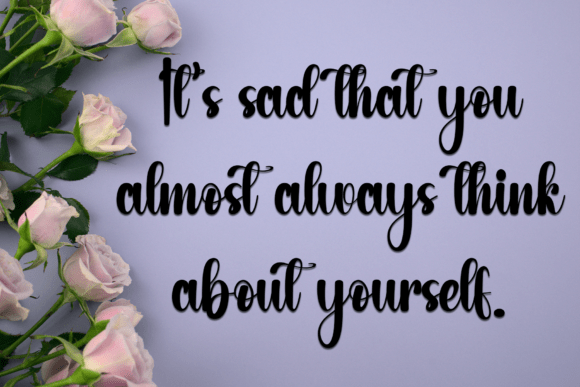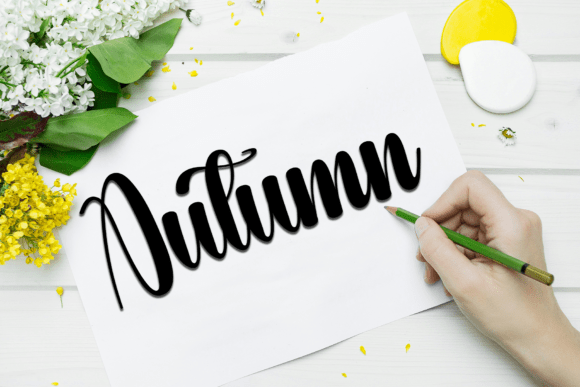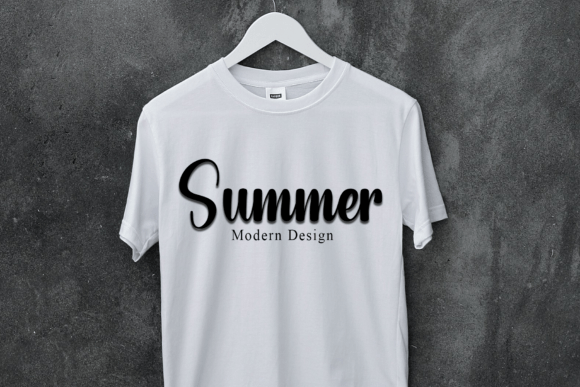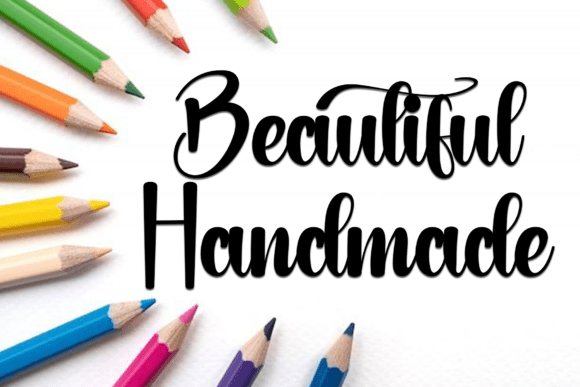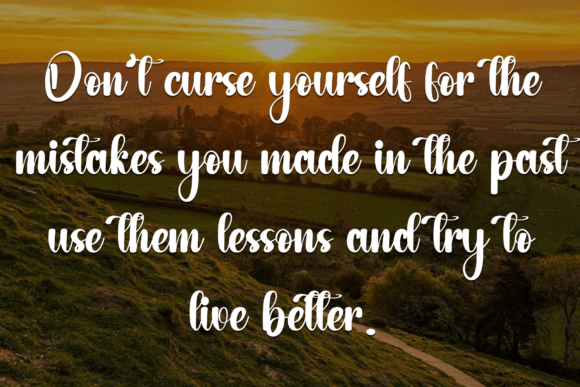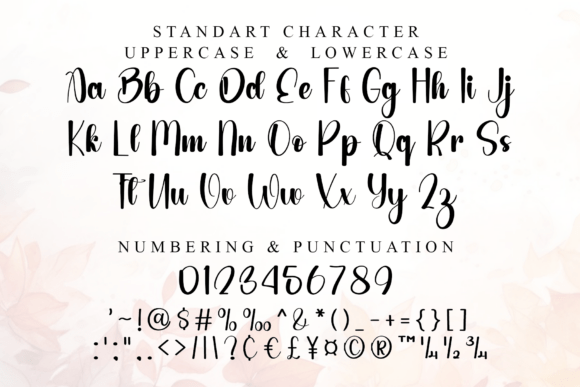
Introduction to Signature Calligraph Font
As a designer, have you ever found yourself staring at a blank canvas, searching for the perfect font to bring your creative project to life? It’s a moment we’ve all experienced – the blank slate, the endless possibilities, and the pressure to create something truly special. That’s where the Signature Calligraph Font comes in, offering a unique and timeless handwritten font that will elevate your designs to the next level.
This stunning font is not only a design resource, but also a reflection of your brand’s personality and style. With its high-quality, handwritten letters, the Signature Calligraph Font is perfect for creating eye-catching logos, branding, and quotes. Whether you’re working on a project with a transparent background or a bold, colorful design, this font is sure to add a touch of elegance and sophistication.
Key Features of Signature Calligraph Font
- Unique, Hand-Drawn Design: The Signature Calligraph Font is a one-of-a-kind, high-quality design resource perfect for creative projects requiring a personal touch.
Honest Review: Signature Calligraph Font
I recently had the chance to work with the Signature Calligraph Font, and I must say it’s been a game-changer for my creative projects. This high-quality font is perfect for adding a personal touch to your designs.
- ✨ Beautiful and elegant script style that’s perfect for titles and headings
- ✨ High-quality vector graphics that are crisp and clear even at small sizes
One thing to note is that the font can be a bit tricky to work with for beginners, especially when it comes to adjusting the spacing and alignment. Additionally, the font may not be compatible with all design software, so be sure to check the system requirements before downloading.
- ⚠️ May not be suitable for large blocks of text due to its script style
- ⚠️ Can be tricky to work with for beginners
Overall, I’m very impressed with the Signature Calligraph Font. It’s a valuable addition to any designer’s toolkit, and I’ve already used it in several high-profile projects. If you’re looking for a high-quality, free font for your creative project, I highly recommend giving it a try.
Experiment with different font sizes and colors to create a unique look. Use the font in combination with other design elements to add depth and interest to your design project. Consider using the font on a transparent background to create a sense of layering and dimension.
The Signature Calligraph Font is ideal for use in wedding invitations, birth announcements, and other special occasion designs. It’s also great for creating high-quality logos and branding materials. With its elegant and sophisticated look, this font is perfect for any creative project that requires a touch of luxury and sophistication.